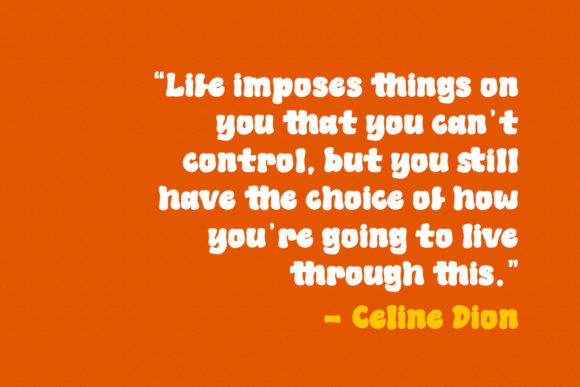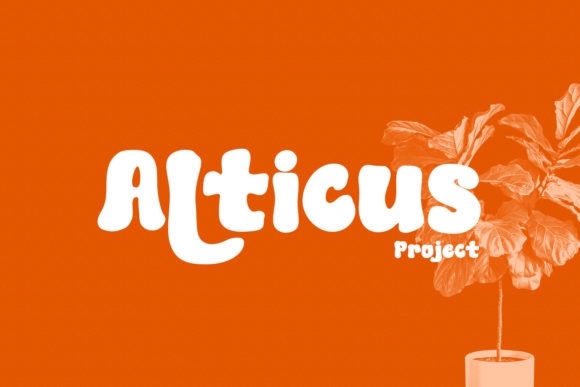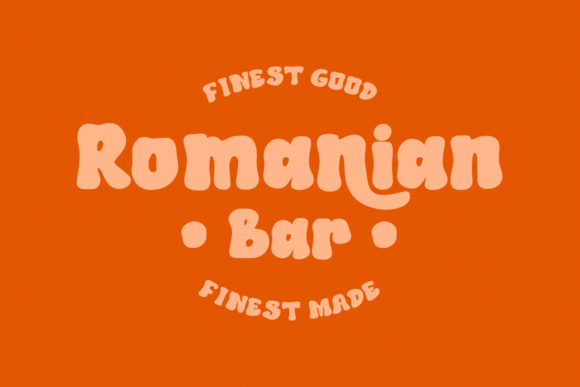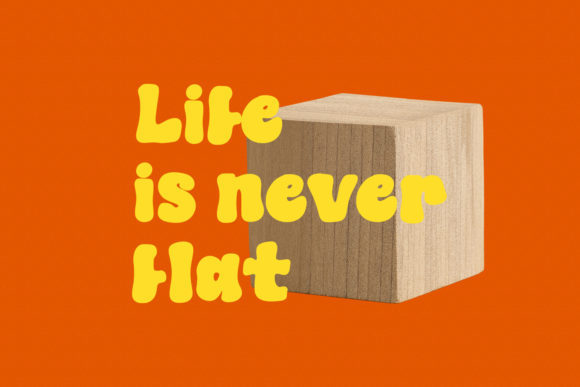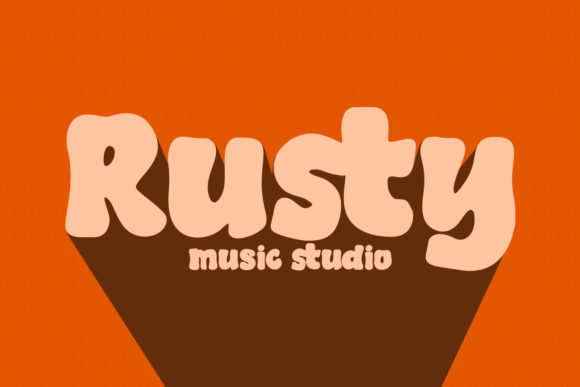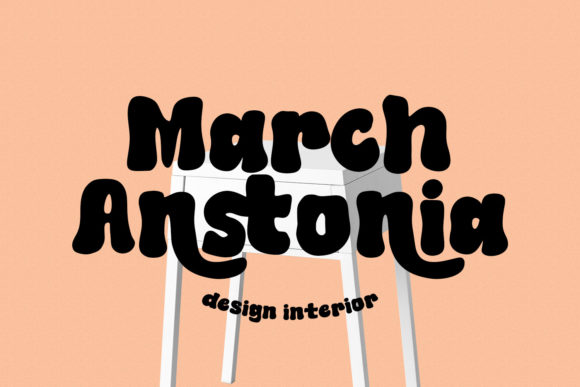
Introducing Alaskano Font: The Ultimate Display Font for Creative Projects
Are you tired of using the same old fonts for your creative projects? Look no further than Alaskano Font, a cool, fun, and thick lettered display font that’s sure to elevate your designs. Whether you’re a designer, crafter, or simply someone who loves to dabble in creative projects, Alaskano Font is an incredible asset to have in your font library.
What Makes Alaskano Font So Special?
Alaskano Font is a unique and versatile font that’s perfect for a wide range of creative projects. Its thick, bold letters make it perfect for headlines, titles, and other display text, while its fun and playful vibe makes it ideal for projects that require a bit of personality. Whether you’re designing a logo, creating a poster, or crafting a social media graphic, Alaskano Font is sure to make your project stand out.
Key Features of Alaskano Font
- Thick and Bold Letters: Alaskano Font features thick, bold letters that are perfect for display text.
- Fun and Playful Vibe: The font has a fun and playful vibe that’s perfect for projects that require a bit of personality.
- Highly Versatile: Alaskano Font can be used for a wide range of creative projects, from logos and posters to social media graphics and more.
- Easily Readable: Despite its bold and thick letters, Alaskano Font is still easily readable, even at smaller sizes.
How to Use Alaskano Font in Your Creative Projects
Alaskano Font is incredibly easy to use and can be incorporated into a wide range of creative projects. Here are a few ideas to get you started:
- Logos and Branding: Use Alaskano Font to create a bold and eye-catching logo that’s sure to make your brand stand out.
- Posters and Flyers: Alaskano Font is perfect for creating bold and attention-grabbing posters and flyers.
- Social Media Graphics: Use Alaskano Font to create fun and engaging social media graphics that are sure to grab the attention of your followers.
- Signs and Banners: Alaskano Font is perfect for creating bold and eye-catching signs and banners.
Why Designers and Crafters Love Alaskano Font
Designers and crafters love Alaskano Font for a variety of reasons. Here are a few:
- Unique and Versatile: Alaskano Font is a unique and versatile font that’s perfect for a wide range of creative projects.
- Easily Customizable: The font is easily customizable, allowing you to adjust the size, color, and style to fit your project’s needs.
- Time-Saving: Alaskano Font is a time-saving solution for designers and crafters who need to create high-quality designs quickly.
In conclusion, Alaskano Font is a cool, fun, and thick lettered display font that’s perfect for a wide range of creative projects. Its unique and versatile design makes it an incredible asset to have in your font library, and its ease of use and customization options make it a favorite among designers and crafters. Whether you’re creating a logo, poster, social media graphic, or any other type of design, Alaskano Font is sure to elevate your project and make it stand out.